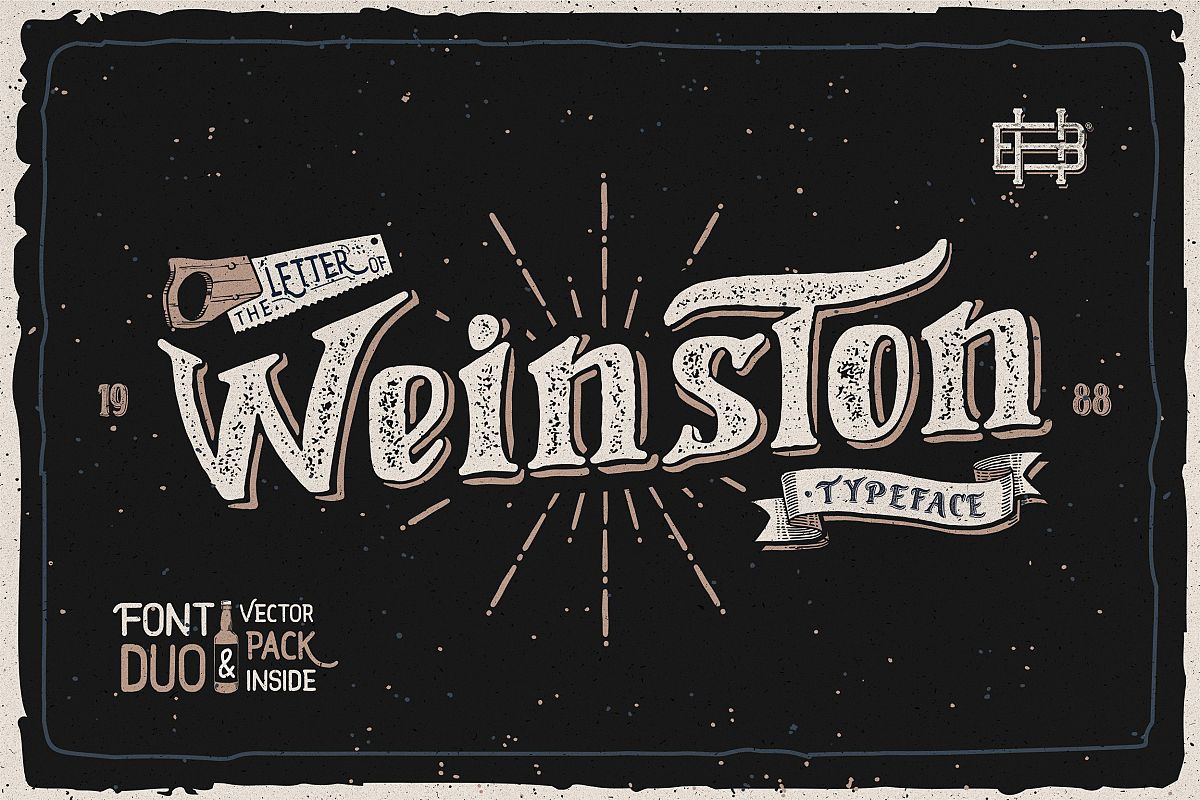
Weinston Typeface & Extras
Weinston Sans
Weinston
Weinston Rough
Weinston Typeface presented from Heybing Supply Co, Dual-purpose font, with authentic hand made characters and an irregular baseline, a casual, arty and inky, also come with vector element and badges as free extras so it will capable to make a lot of design styles.
To create the beautiful combination, just mix the uppercase and lowercase then mix with the alternative glyphs.
The Weinston typeface includes a full set of capital and lowercase letters, as well as multi-lingual support, currency figures, numerals, punctuation & some extra glyphs.
Weinston typeface is suitable font for many creative products & designs.